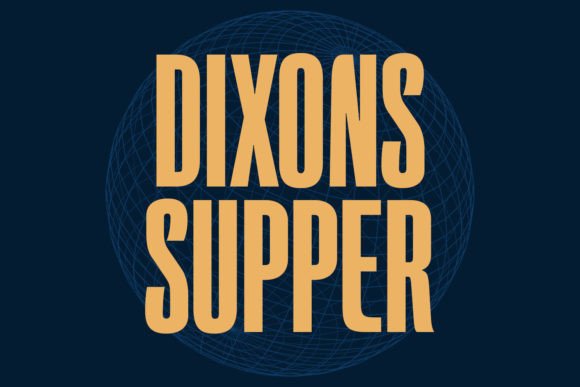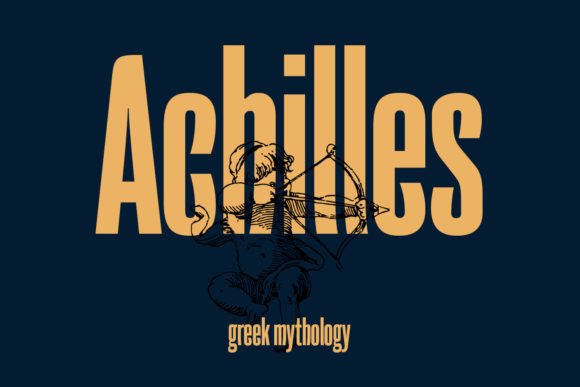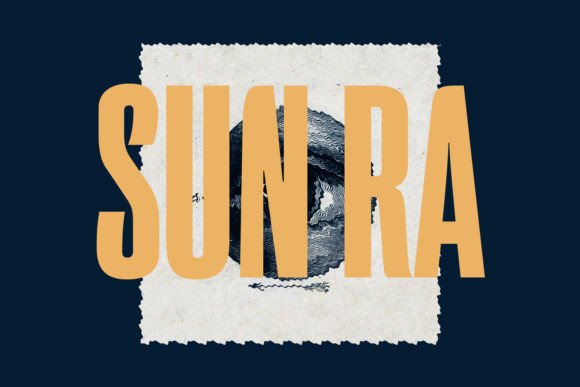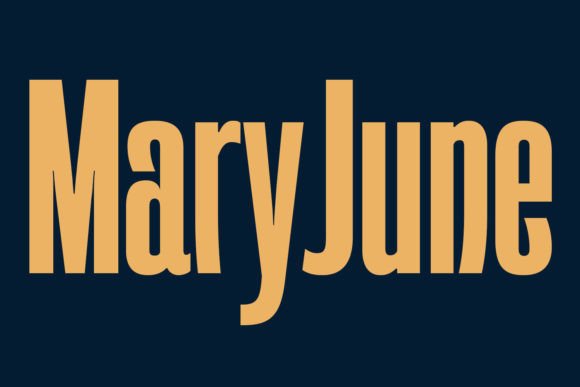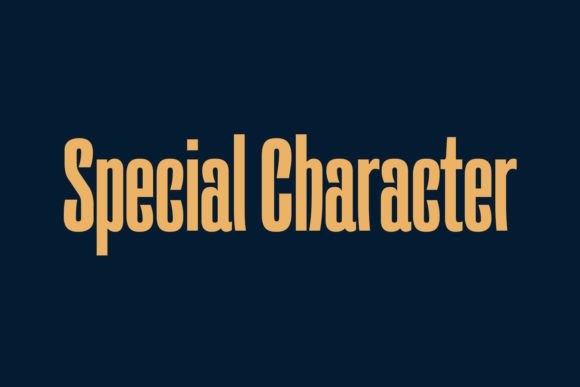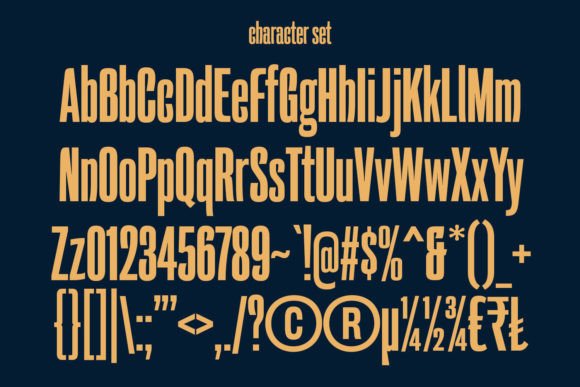
Uncovering the Timeless Elegance of the Bastler Font
Have you ever stumbled upon an old family heirloom or a vintage photograph and felt an instant connection to the past? For designers, that feeling can be captured in the perfect font – one that evokes nostalgia and adds a touch of classic charm to any project. That’s where the Bastler Font comes in – a stunning sans-serif font that embodies the essence of old-world elegance.
With its classic lines and retro-style lettering, the Bastler Font is perfect for designers looking to add a vintage twist to their branding or typography. Its PUA (Private Use Area) encoding ensures that all glyphs and swashes are easily accessible, giving designers the creative freedom to experiment and push the boundaries of their work.
Whether you’re working on a design project that requires a touch of nostalgia or simply want to add some timeless elegance to your typography, the Bastler Font is an invaluable asset in any designer’s toolkit.
Bastler Font Key Features
- Font Family: Bastler Font is a sans-serif font family with multiple weights and styles, including light, regular, medium, bold, and extra bold.
- Character Set: Supports a wide range of languages, including Latin, Cyrillic, Greek, and many others, making it a versatile choice for international use.
- Unique Characteristics: Bastler Font features a distinctive, rounded design with a friendly and approachable feel, making it suitable for use in branding, advertising, and editorial content.
Bastler Font Review
I recently had the chance to work with the Bastler font, and here’s my honest review.
- Unique and quirky design: The Bastler font has a distinctive look that’s sure to stand out in your designs.
- Well-suited for creative projects: This font is perfect for projects that need a touch of whimsy and personality.
- Good legibility: Despite its unusual design, the Bastler font is still easy to read, even at smaller font sizes.
- May not be suitable for formal projects: The Bastler font’s quirky design might not be the best fit for more formal or professional projects.
- Limited font sizes: While the font is legible at smaller sizes, it may not be as effective at very large font sizes.
- Not ideal for body text: The Bastler font’s unique design might be distracting when used for large blocks of text.
Overall, I think the Bastler font is a great addition to any designer’s toolkit. While it may have some limitations, its unique design and good legibility make it a great choice for creative projects. With some careful planning and use, this font can add a lot of personality to your designs.
Tip: Use Bastler Font for creating eye-catching headings and titles in your designs.
Tip: Use Bastler Font for creating custom typography and branding elements.
Tip: Use Bastler Font for creating professional-looking presentations and documents.
Bastler Font is ideal for:
- Creating bold and eye-catching headings and titles.
- Designing custom typography and branding elements.
- Adding a unique touch to presentations and documents.